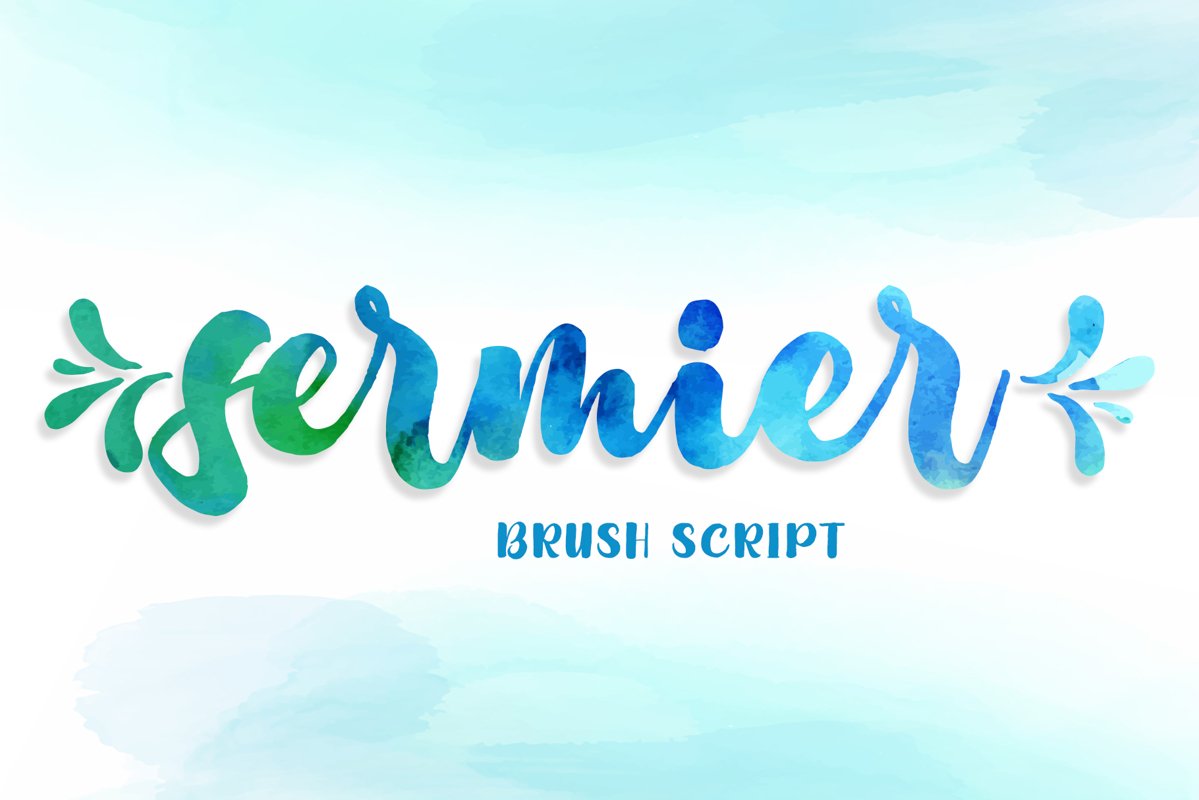
Sermier
Sermier Reg
Sermier Slant
Sermier is a hand brushed font, with natural authentic brush, and also provided some alternate, ligatures and Swashes Extra. Brand new stylish textured fonts and Make it easy for made logotype Handlettering Style. It will be great for Logotypes, Posters, Digital Lettering Arts, Clean Design, Branding Design, Sign, Merchandise and Social Media Posts.